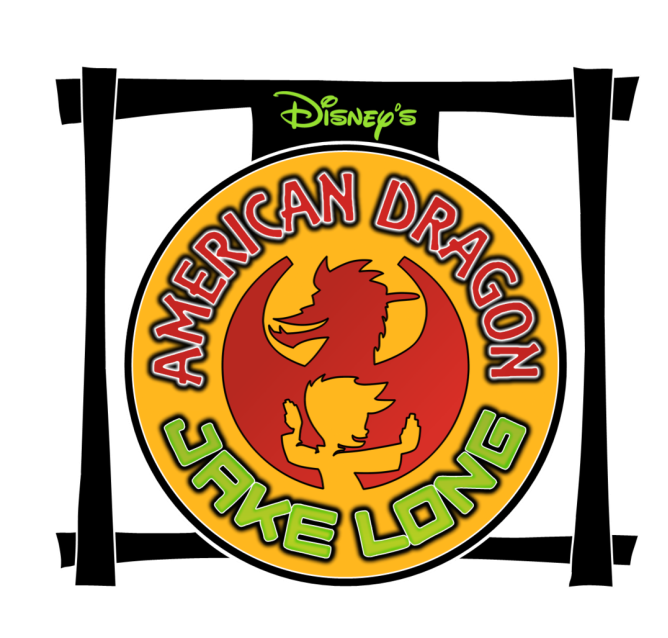
American Dragon Font
AdventureAmerican Dragon: Jake Long is a Disney animated television series about a Chinese-American boy named Jake Long who can transform into a dragon. He must balance his normal life as a 13-year-old with his duties as the American Dragon, protecting the magical creatures living in the underground magical world of New York City.
We see two fonts being used for the logo of the animated TV series: the “American Dragon” part is set in Equinox, an Art Nouveau style font designed by Vince Whitlock. For the font used for “Jake Long”, the most similar one we can find is Luggage Rounded Heavy designed by Jason Koerner.